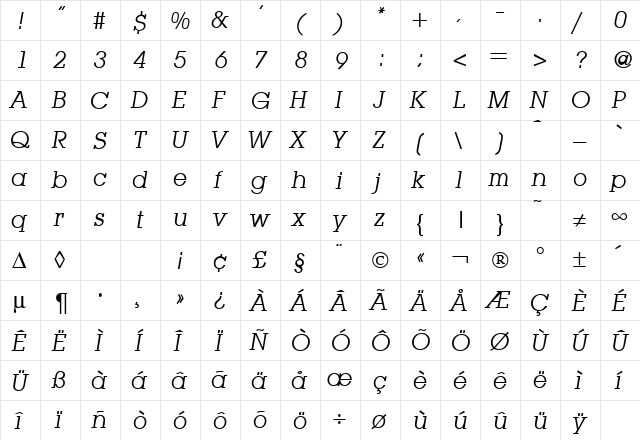
Lubbers RegularItalic
Design Context for Lubbers Typeface
Lubbers offers clean, dependable letterforms without strong stylistic allegiance, making it a practical choice for designers who need flexibility. Its italic angle brings a sense of urgency and motion to the letterforms.